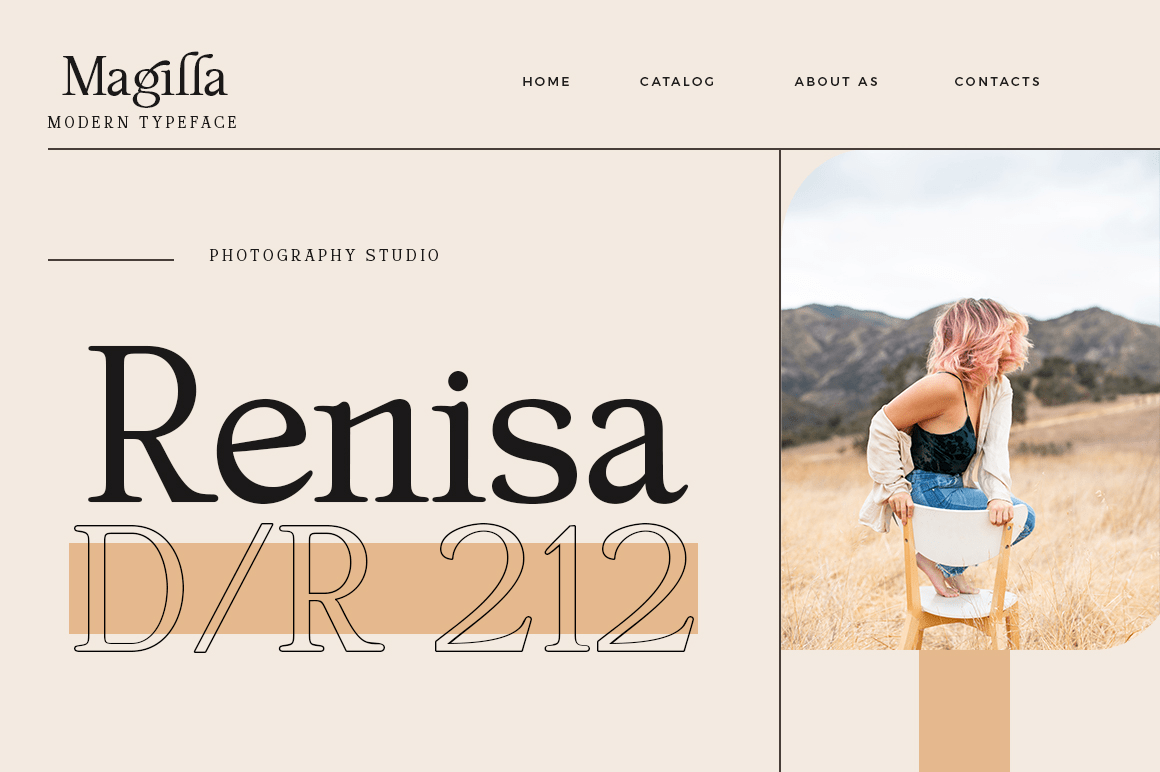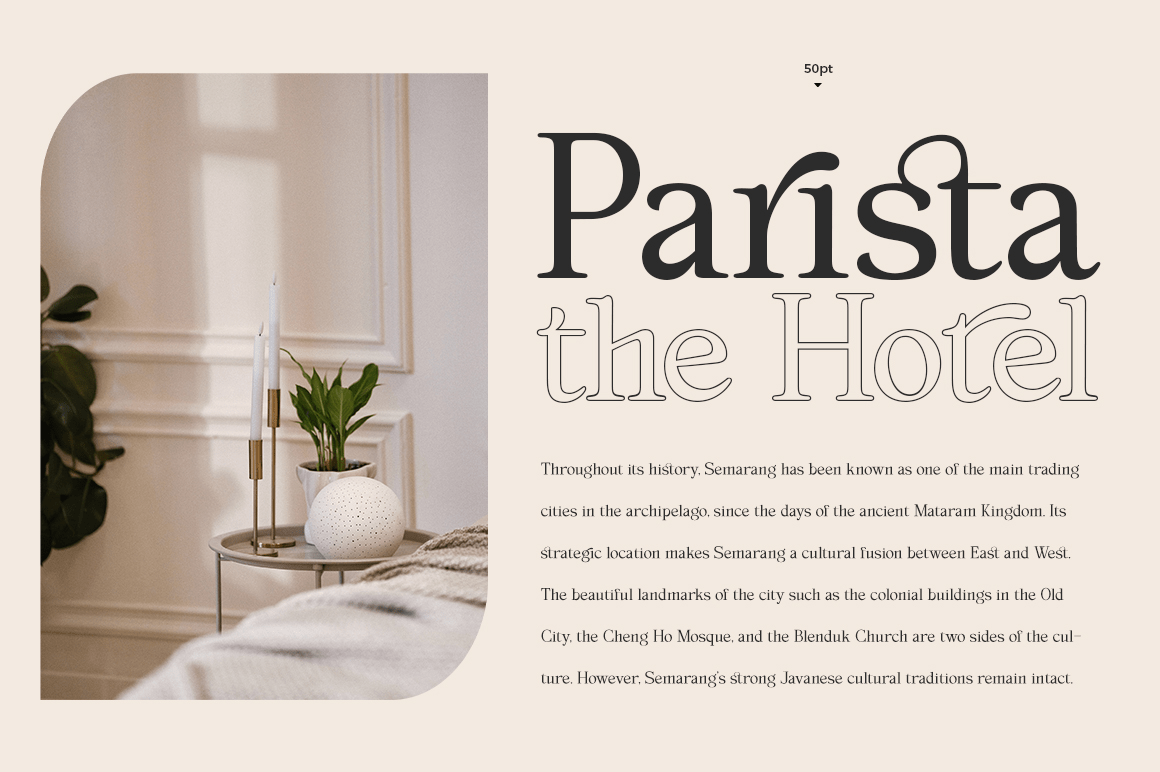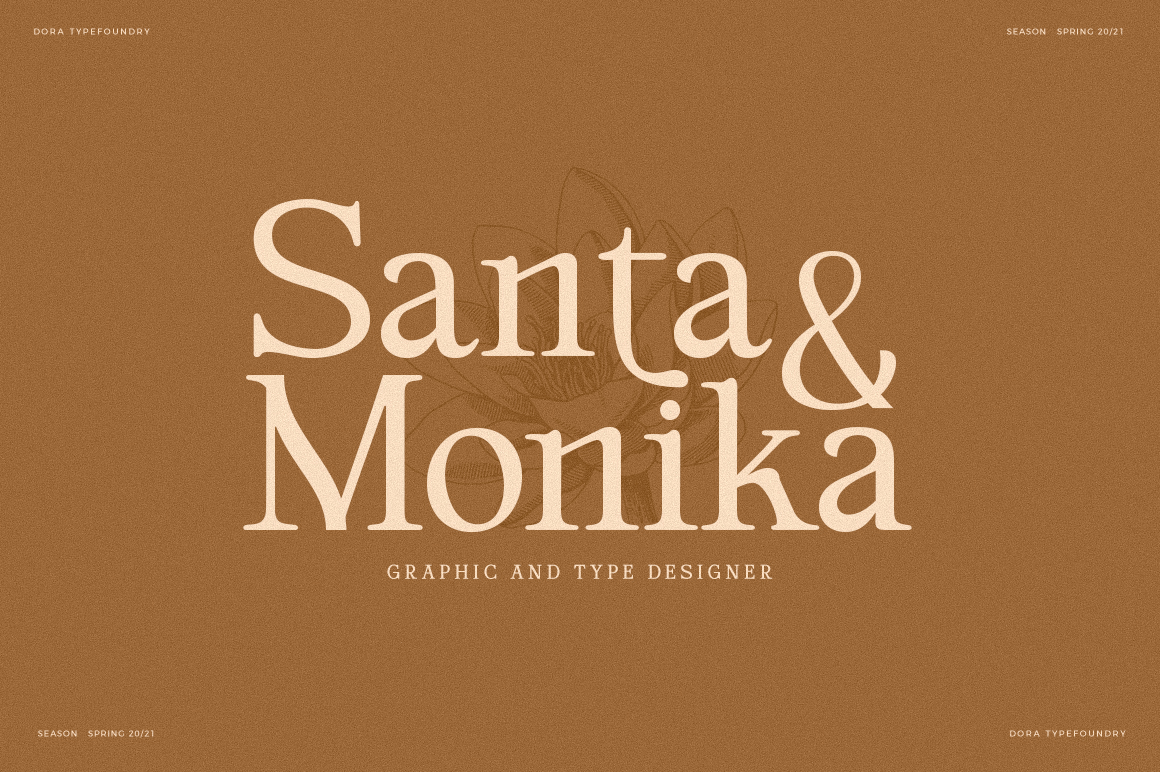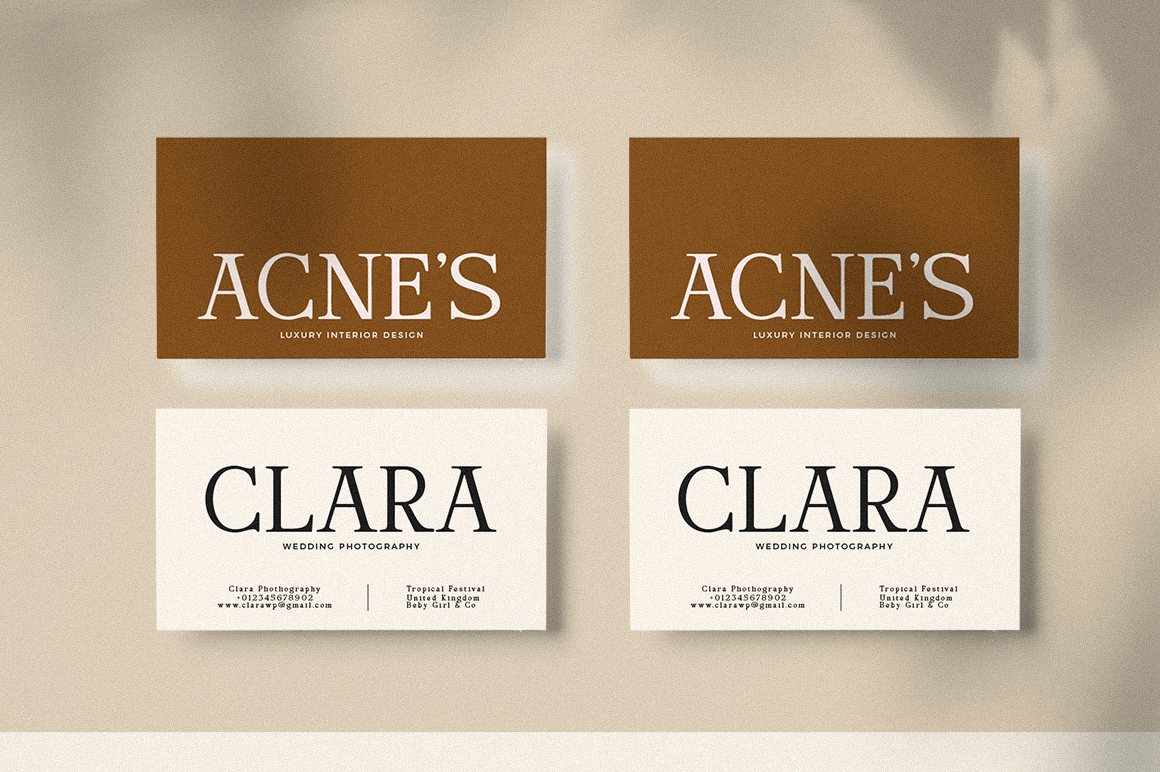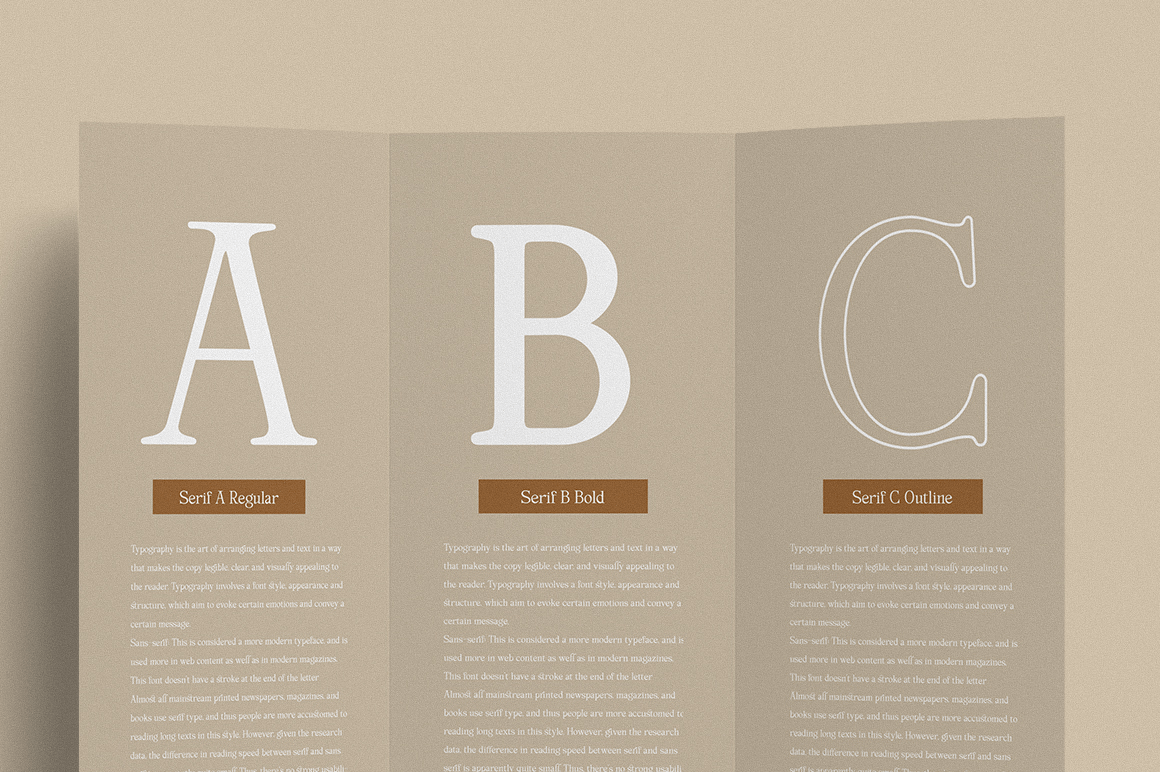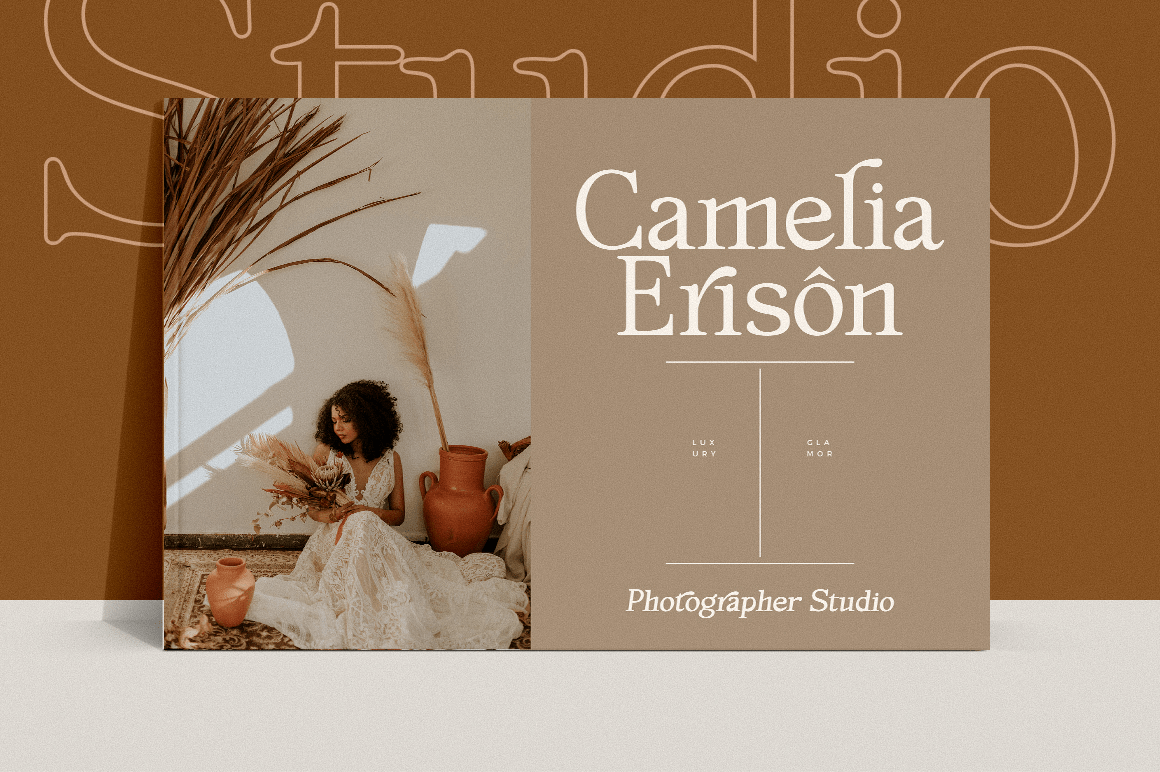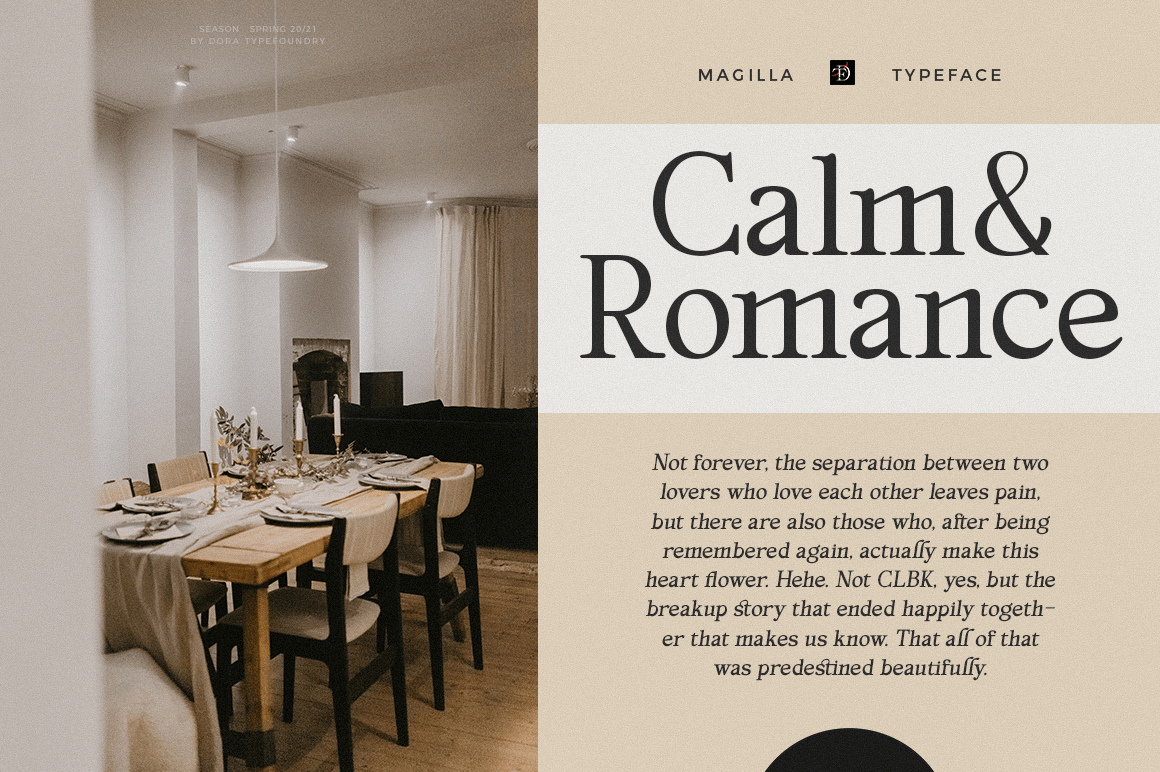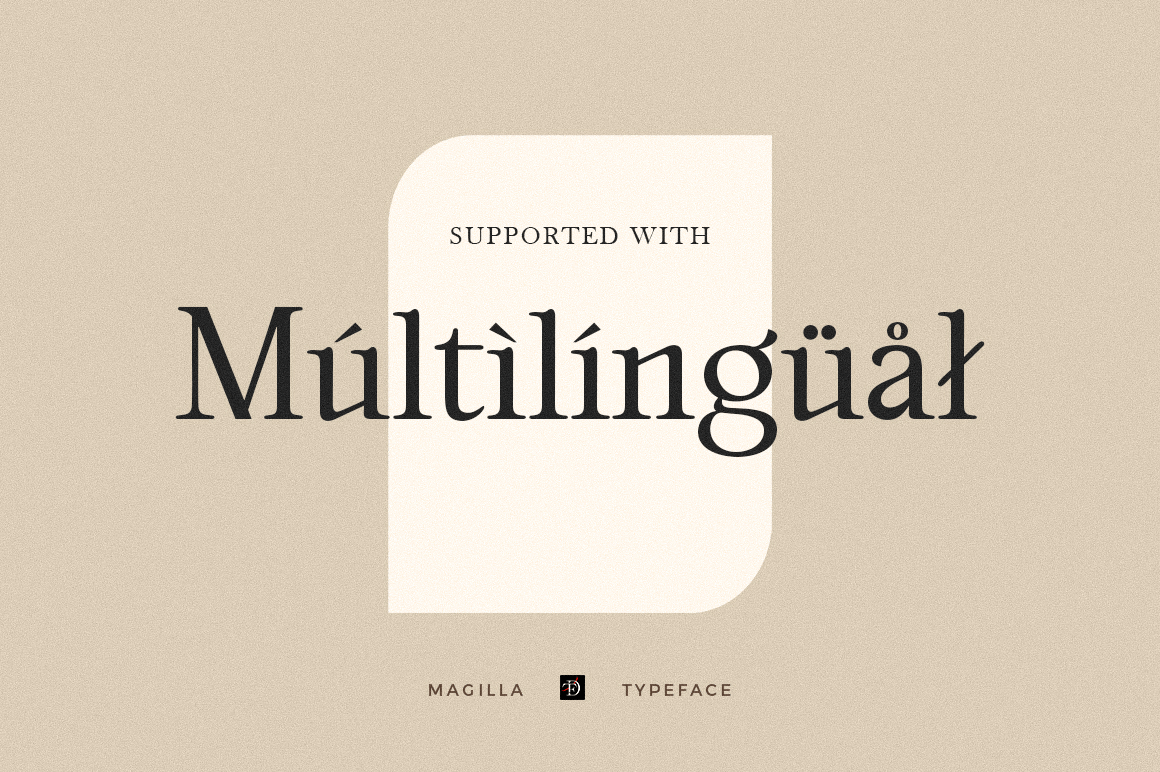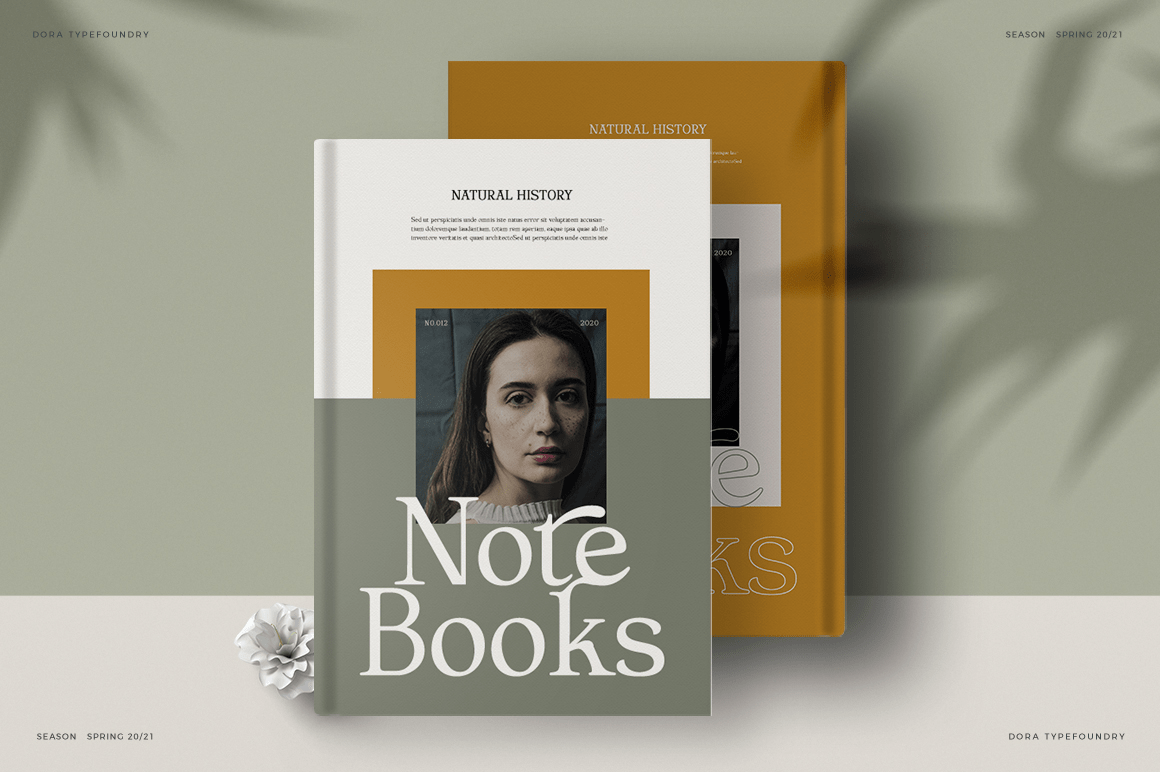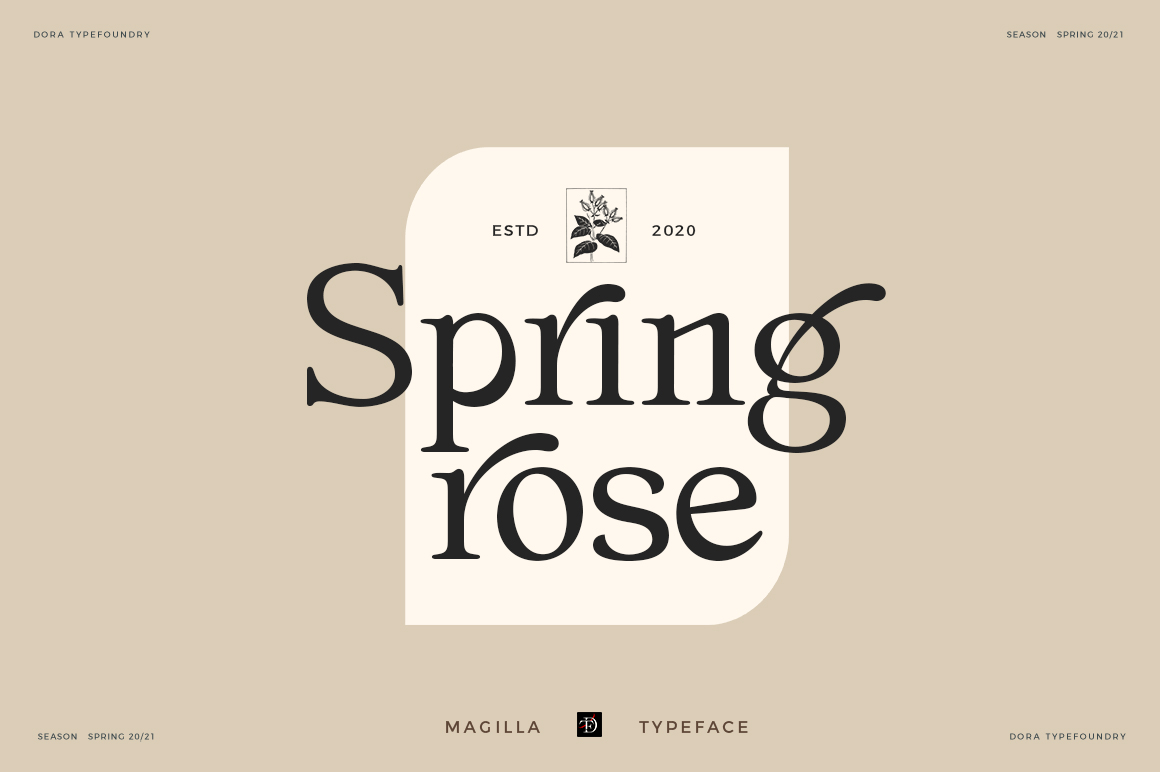
Magilla
Font Family by Dora Typefoundry
Magilla is a new elegant serif font that will add a touch of luxury and style to your projects.
This is a very versatile font that works well in large and small sizes. Perfect for editorial projects, magazine headers, Logo designs, Clothing Branding, product packaging, and showcasing masculine and feminine qualities.
Magilla is equipped with uppercase, lowercase, numbers and full punctuation + multi language support and PUA-encode.